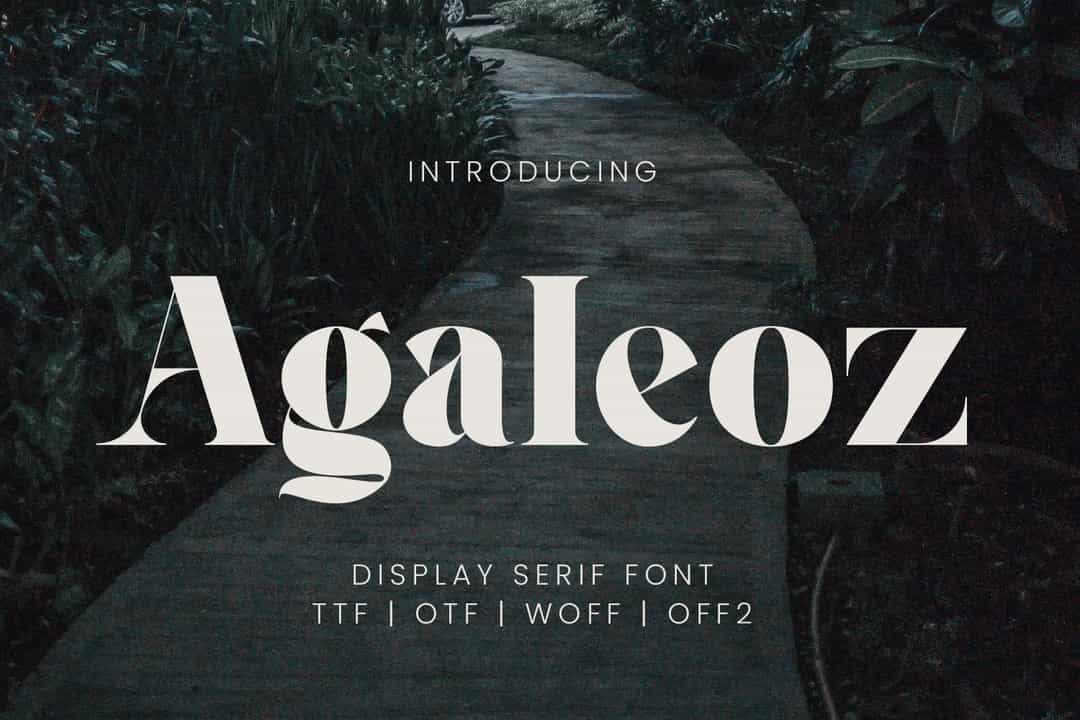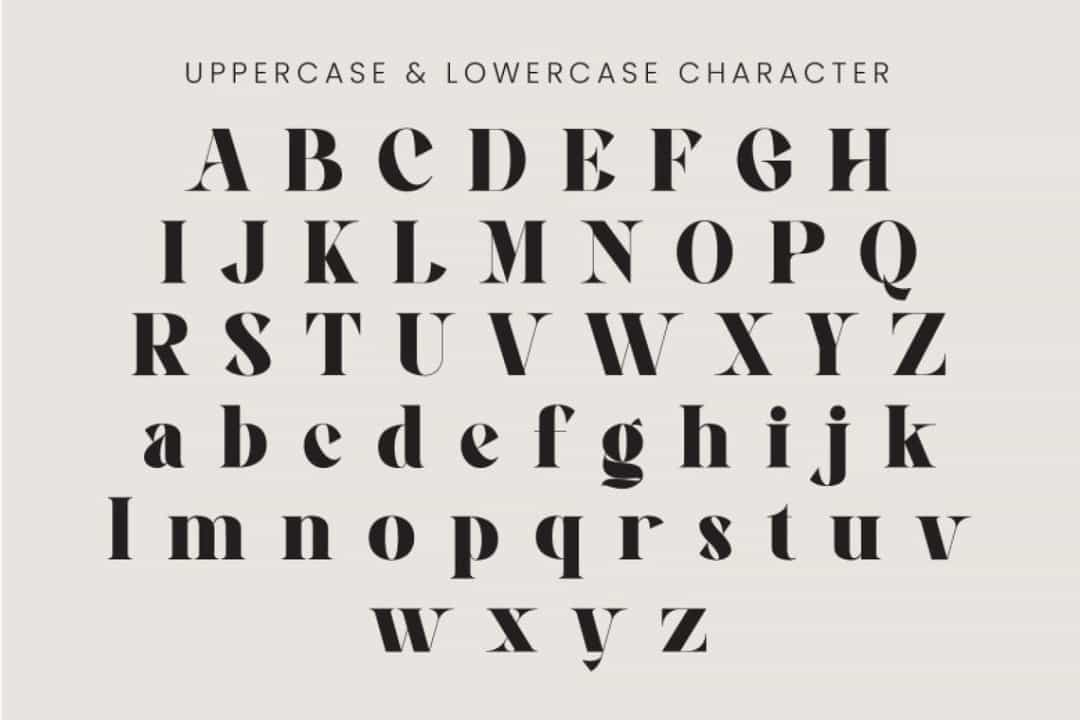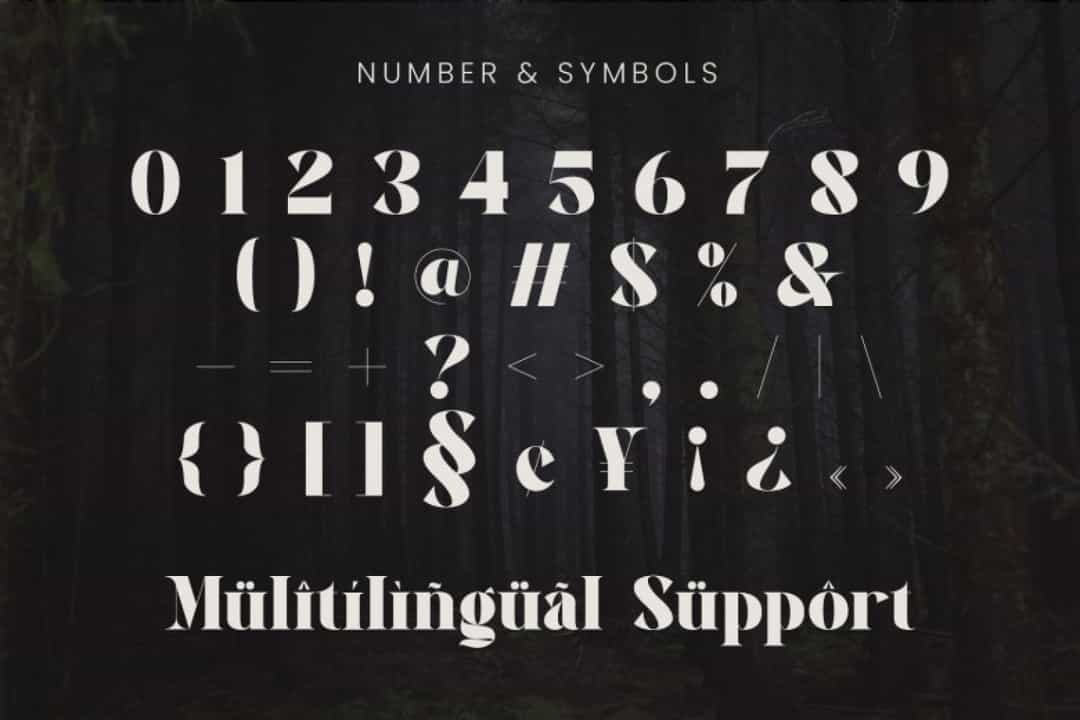
Agaleoz Display Serif Font is an elegant font perfect for branding, logos, invitations, stationery designs and wedding designs as well as social media posts and many other uses. Agaleoz is encoded as PUA which means you have access to all glyphs.